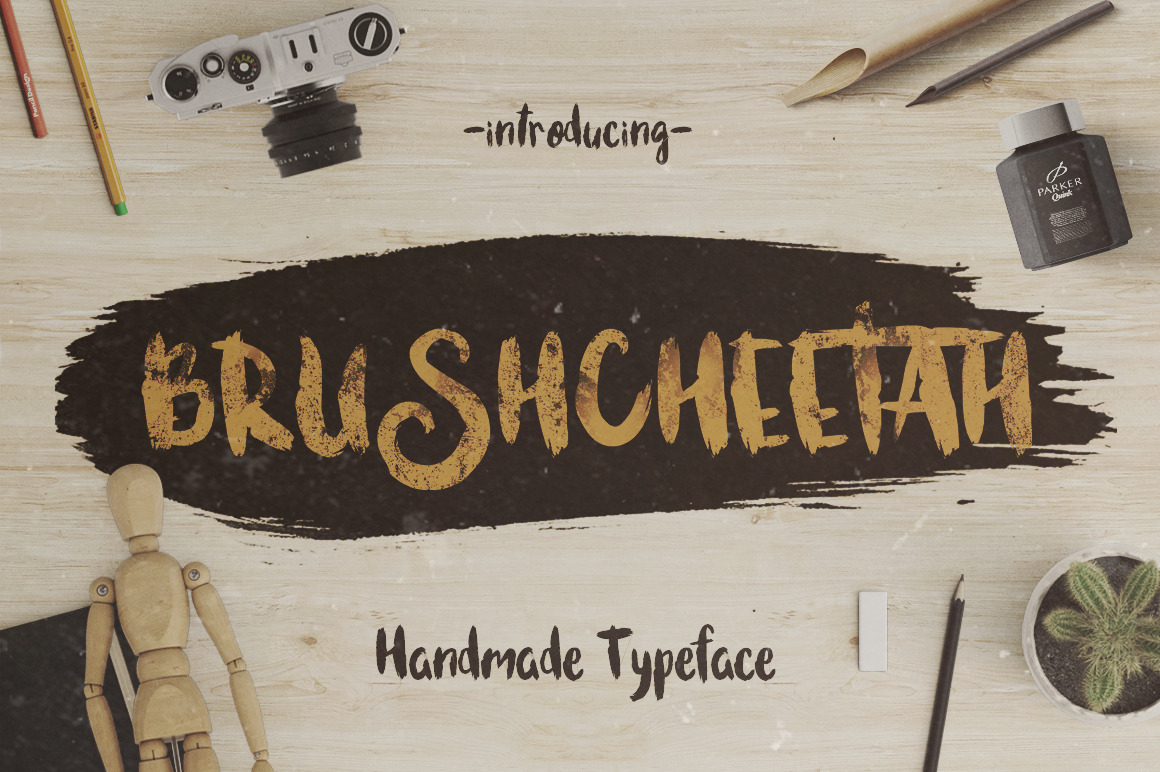
Bruscheetah Brush Font
Bruscheetah is a hand writing typeface with a brush. Combination of strong, rough, bold, and brushy typography with many features inside. Suitable for poster and shirt design.
Features : Uppercase, Lowercase, Numerals, Punctuations, Ligatures and Stylistic Alternates.